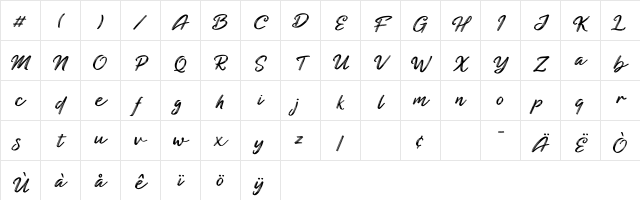
Blackened Script Demo flows with the natural rhythm of handwritten lettering, making it ideal for designs that call for warmth and personal expression.
Font Pairing: Combine Blackened Script Demo with a simple geometric sans for maximum contrast - the tension between flowing curves and clean structure is a classic typographic pairing.
Pro Tip: Use Blackened Script Demo for short runs of text - names, titles, or taglines. Extended body copy in script faces tires the eye quickly.